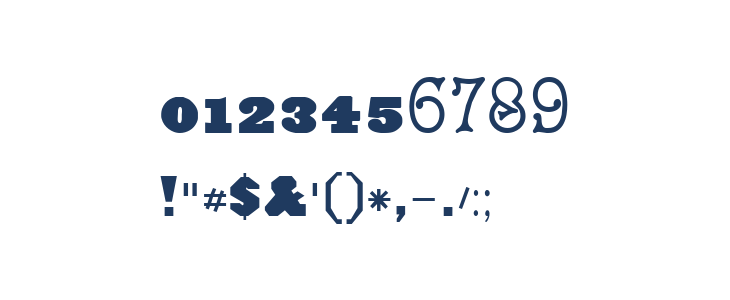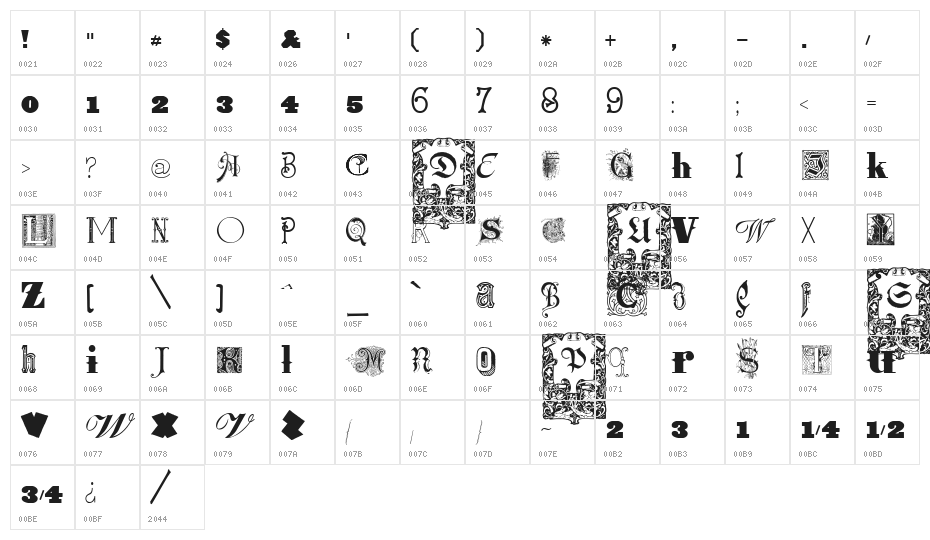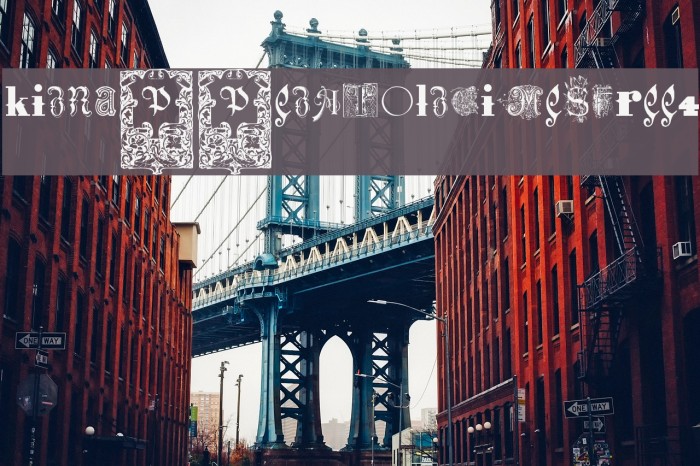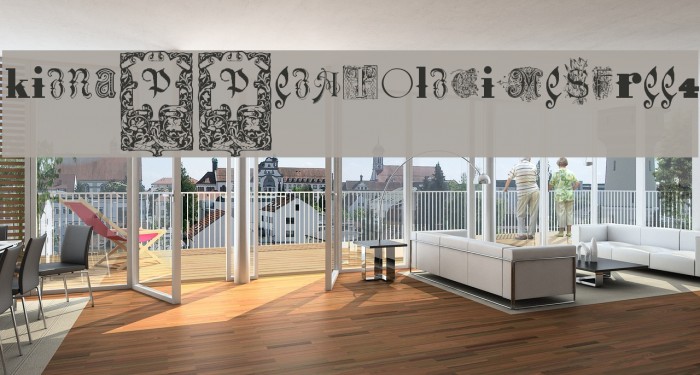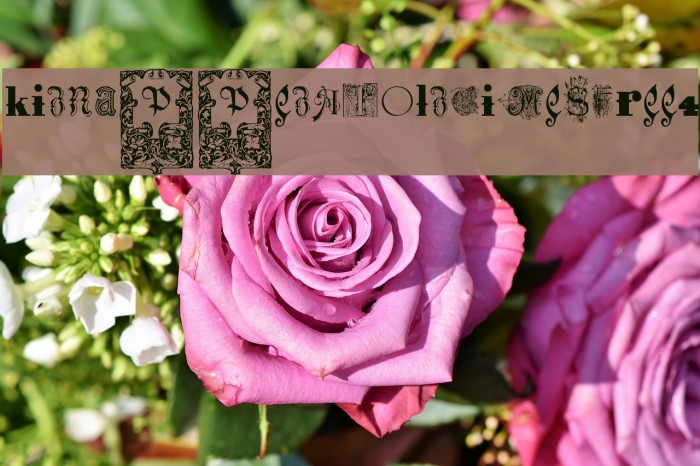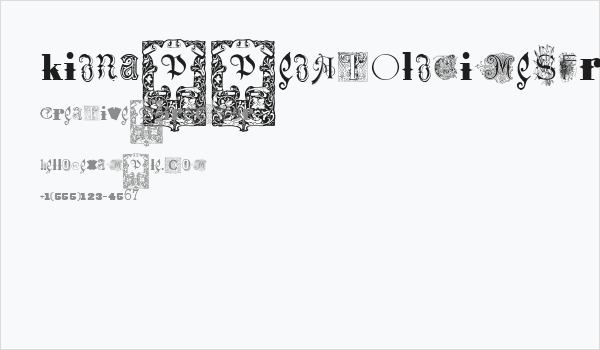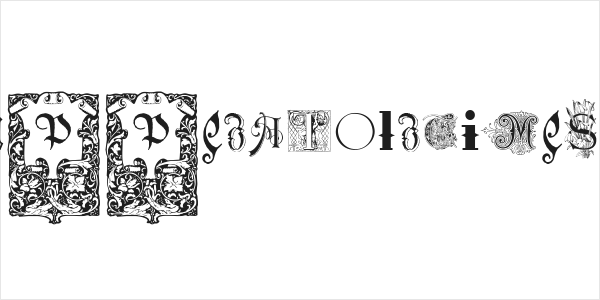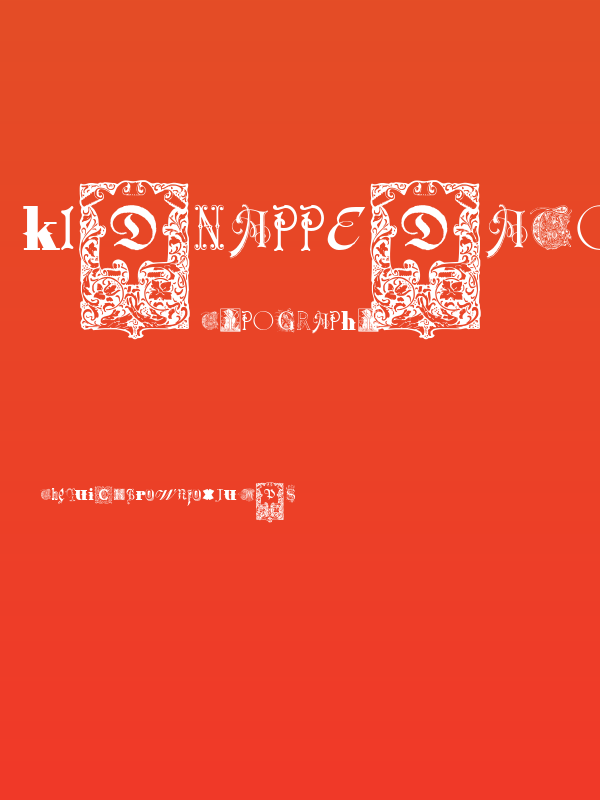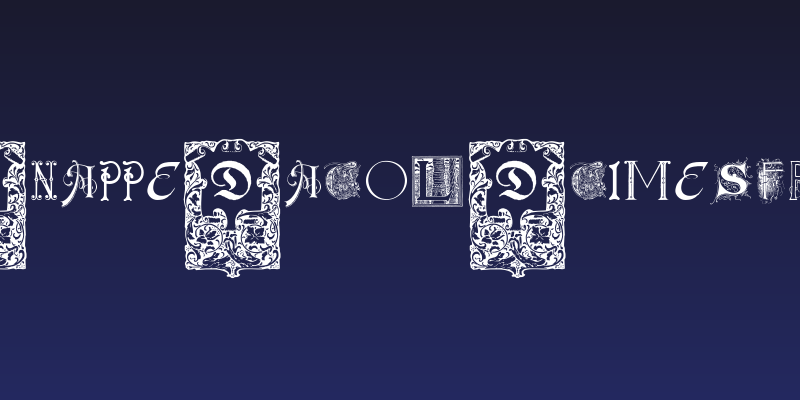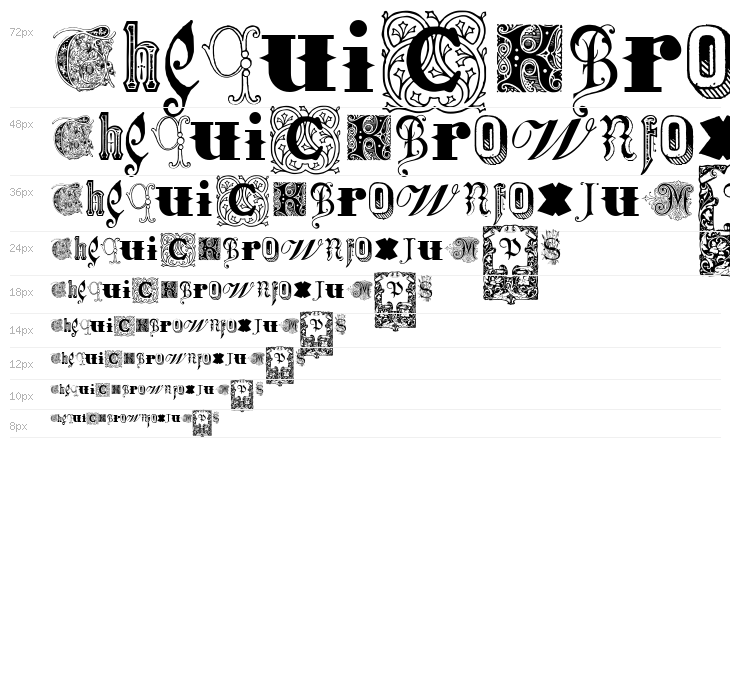
Kidnapped At Old Times Free 4 Font
Kidnapped At Old Times Free 4 Description
This font is a highly decorative and ornate typeface, featuring intricate designs and embellishments within each character. The uppercase letters are particularly elaborate, with some characters enclosed in ornate frames, reminiscent of medieval manuscripts or vintage signage. The lowercase letters maintain a similar decorative style, though slightly less complex. The numerals are bold and distinct, with some incorporating decorative elements. Special characters follow the same ornate theme, making this font highly suitable for projects that require a historical or vintage aesthetic.
| Use Case | Headlines, Logos, Decorative text |
| Proposed Projects | This font is perfect for creating vintage posters, book covers, historical event invitations, or any design that requires a touch of elegance and historical flair. |